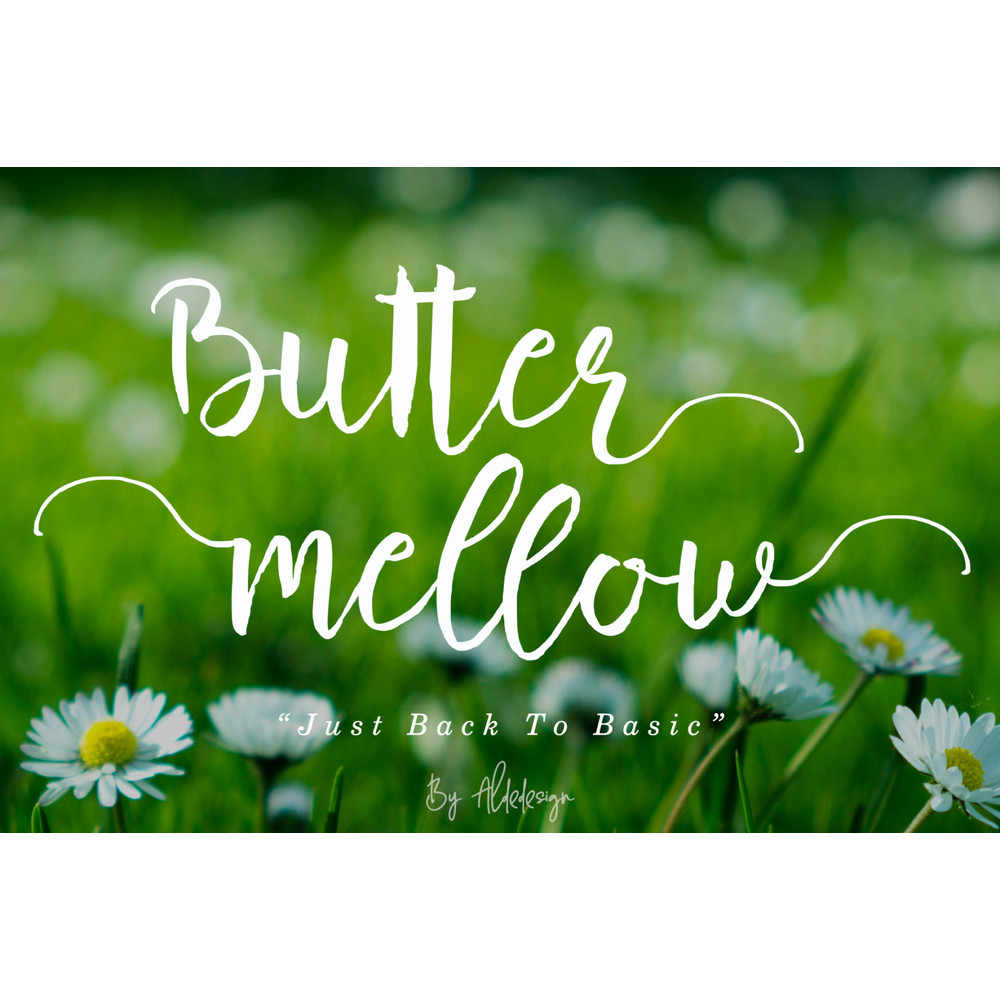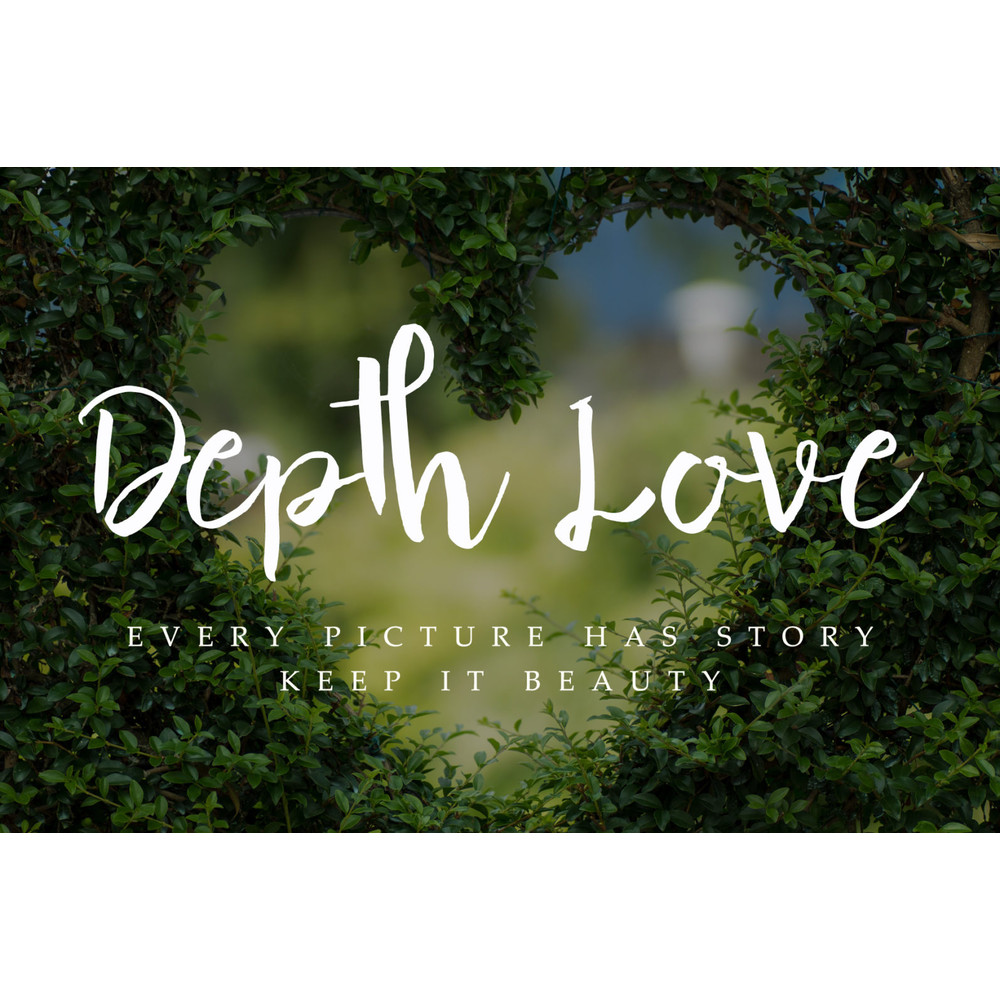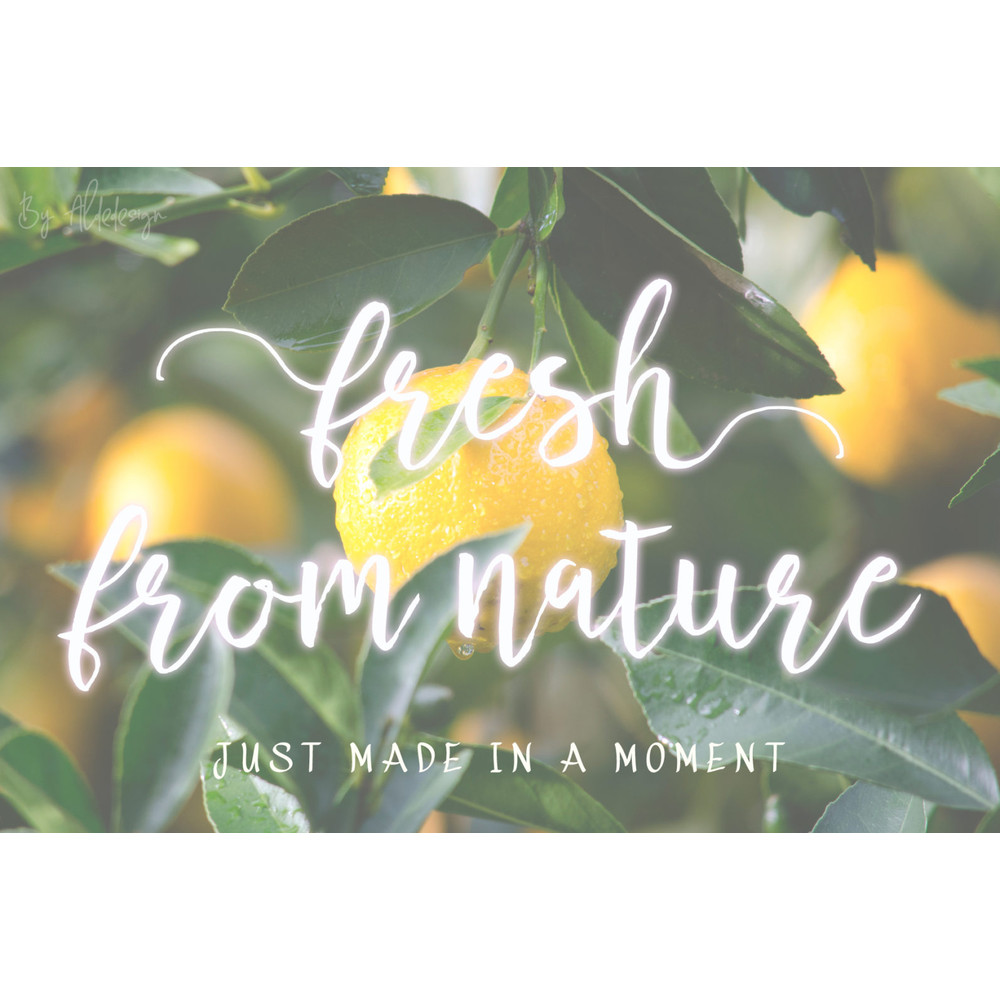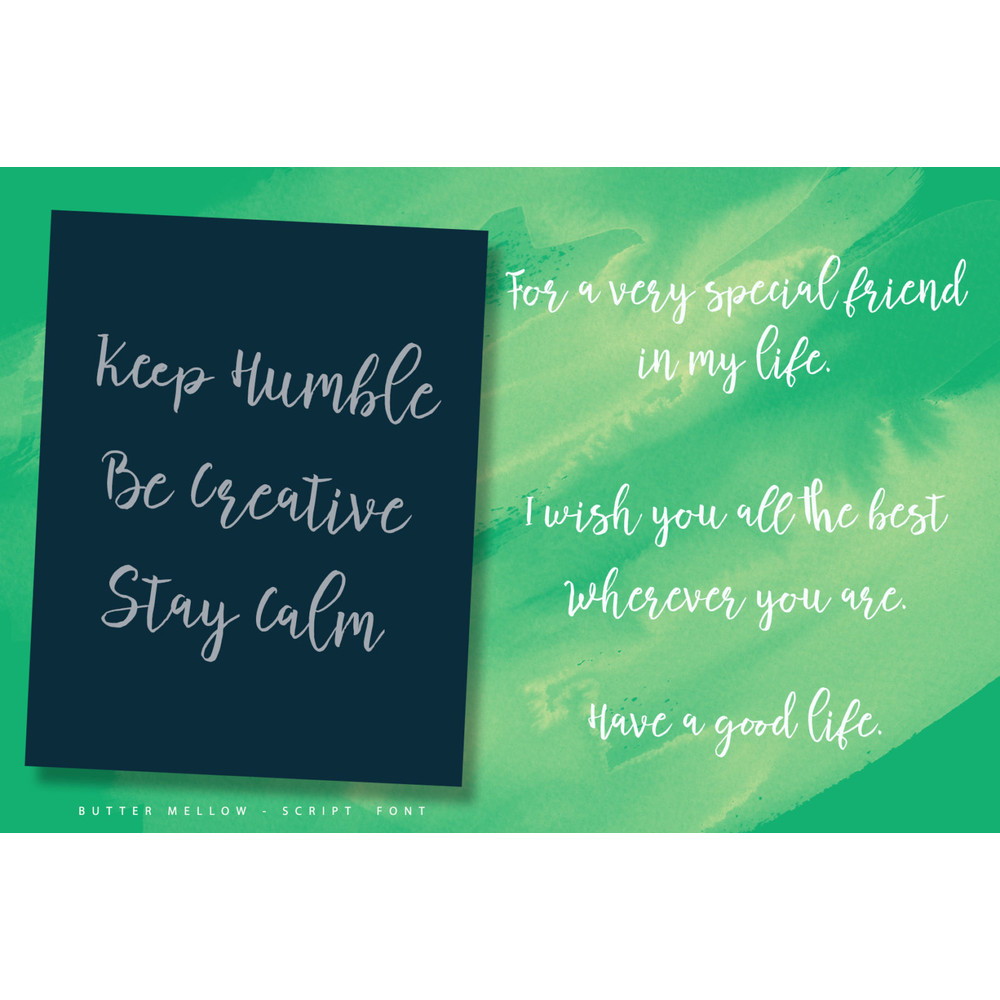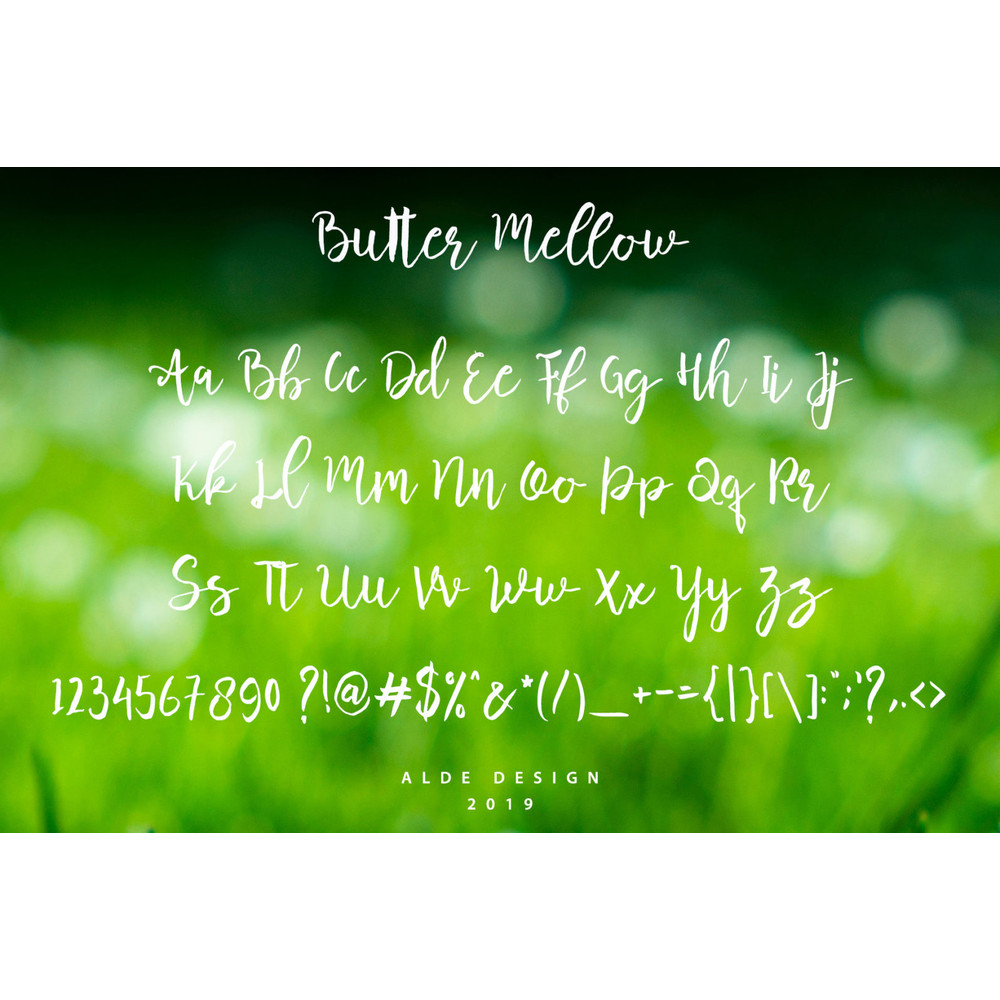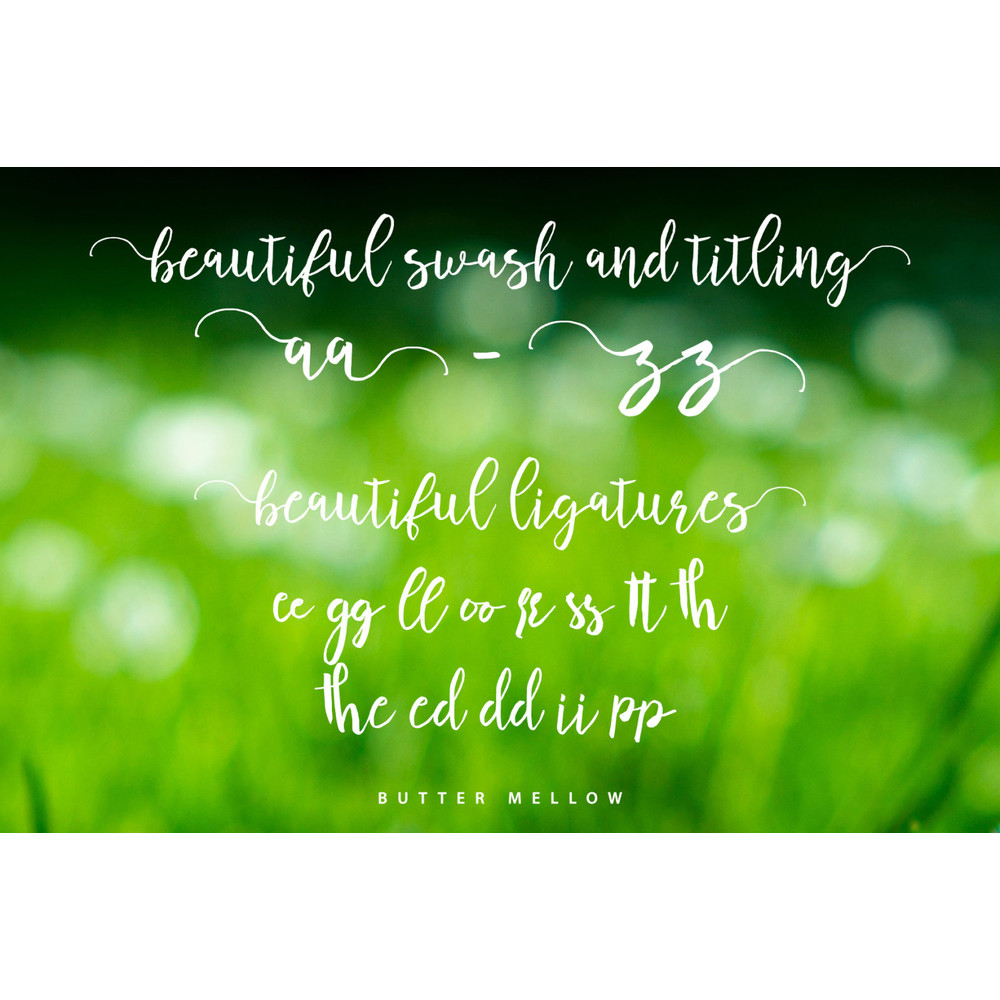
Butter Mellow – Brush Script Font is beautiful script made by depth love. Butter Mellow is made with natural handwriting touch is suitable for you who needs a typeface for Headline, Apparel, Invitation, Branding, Wedding, Logo Design, Lettering, Logotype, Clothing, Poster, Magazine and other design project, t-shirt, letterhead, signage, lable, news, posters, badges etc.
-Stylish handwritten style
-Special Ligatures
-Special Swash (Ending)
-Special Titling (Beginning)
-Multilingual Support